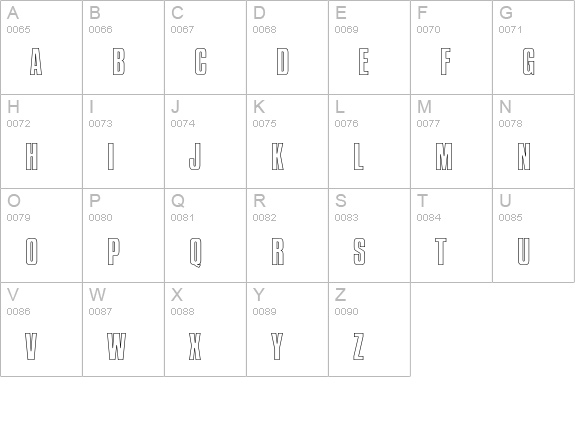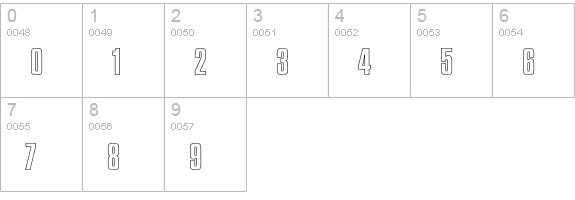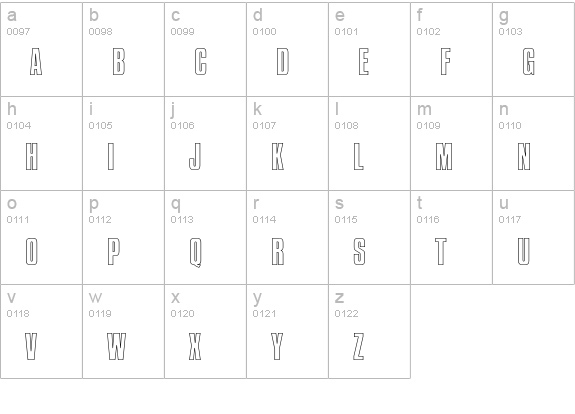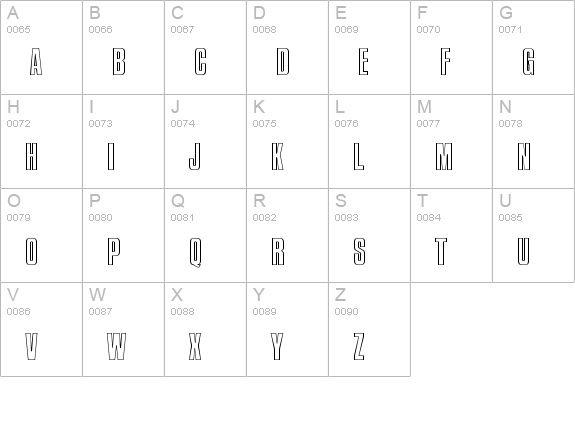
CompactaEF-RegularOutline is a modern and stylish font that exudes sophistication and elegance. Its sleek lines and crisp edges make it perfect for various design projects, from branding to advertising. This font strikes the perfect balance between professionalism and creativity, making it a versatile choice for both print and digital applications. The outline style adds a unique touch to the overall design, making it stand out from the crowd. Best of all, CompactaEF-RegularOutline is available for free download at FontsMarket.com. This means you can easily access this high-quality font without any cost, making it a valuable addition to your font library. Don't miss out on the opportunity to enhance your designs with this beautiful and distinctive typeface.